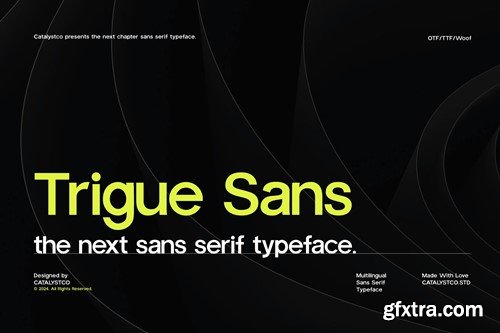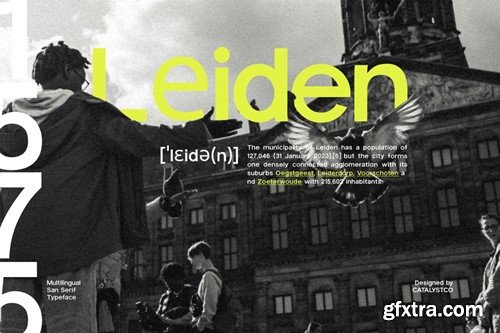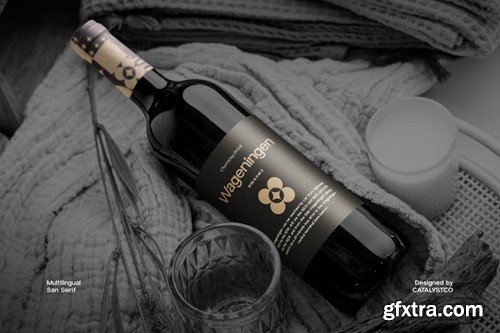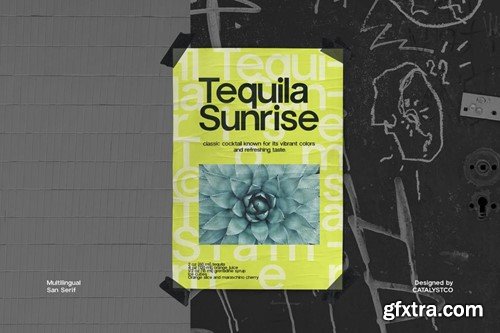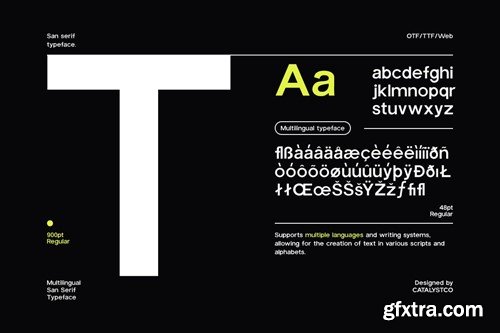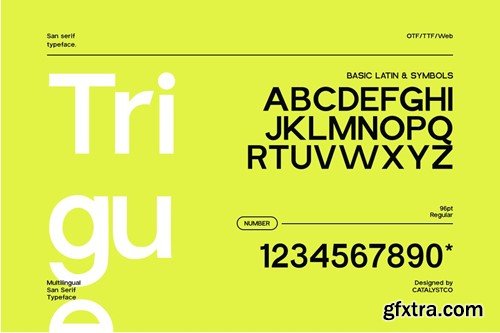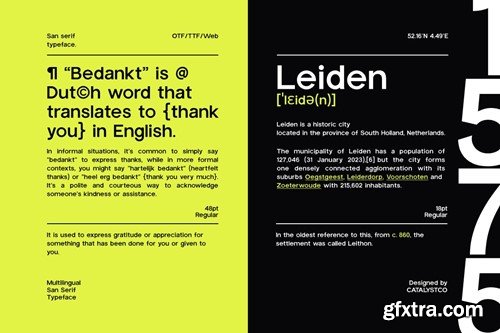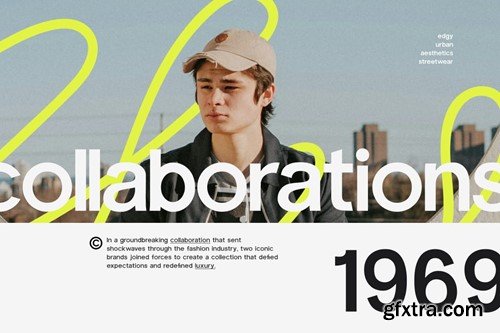
TrigueSans Sans Serif Font VDZSQM3
TrigueSans Sans Serif Font
TrigueSans Sans Serif Font typeface excellent used for the manufacture quote text, logotype, header magazine, and many more.
• Ligatures & Alternate
• Numeral & Punctuations
• Multilingual Support